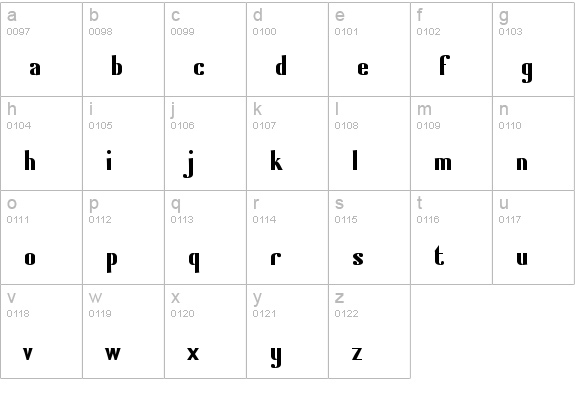
Hijinx Normal is the standard, neutral variant in the Hijinx typeface family \xE2\x80\x94 well suited to general body text, paragraphs, and standard typographic work.
Hijinx Normal font is a versatile and modern typeface that exudes a sense of playfulness and creativity. With its clean lines and stylish curves, this font is perfect for a wide range of design projects, from branding to digital content. The sleek and contemporary look of Hijinx Normal makes it ideal for both print and digital applications, allowing your text to stand out and make a statement. What's even better is that Hijinx Normal font is completely free to download at FontsMarket.com. This means you can easily access this high-quality font without any cost, making it a valuable addition to your font library. Whether you're a professional designer or a hobbyist looking to add some flair to your projects, Hijinx Normal font offers the perfect blend of style and functionality. Download it today and unlock the endless creative possibilities that this font has to offer.